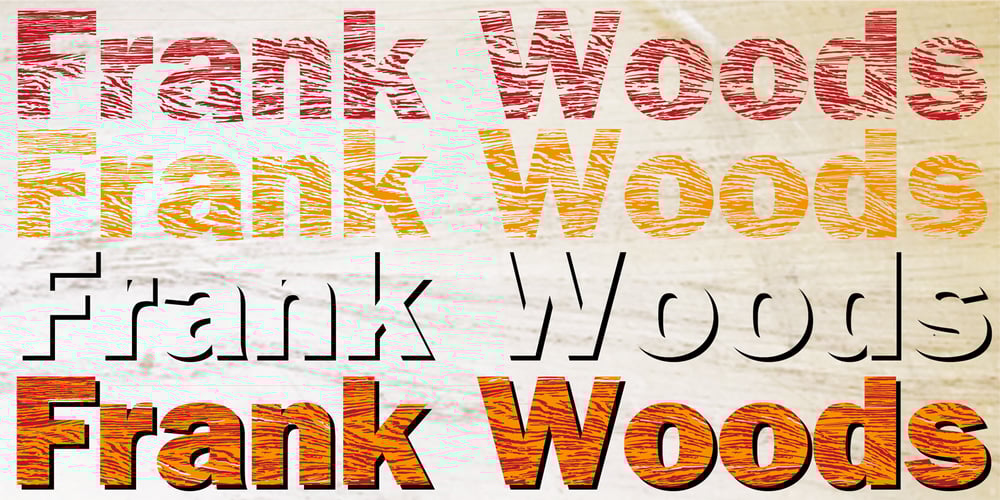
Frank Woods Font Family was designed by Gert Wiescher and published by Wiescher Design. Frank Woods contains 3 styles and family package options. “Frank Woods” is a wooden typeface based on the form of Franklin Gothic Heavy. The three cuts fit together and enable the user to create a lot of impressive variations. Enjoy! The amount of points in the font make it impossible to create Opentype versions, but this Truetype version works excellent on MACs and PCs.